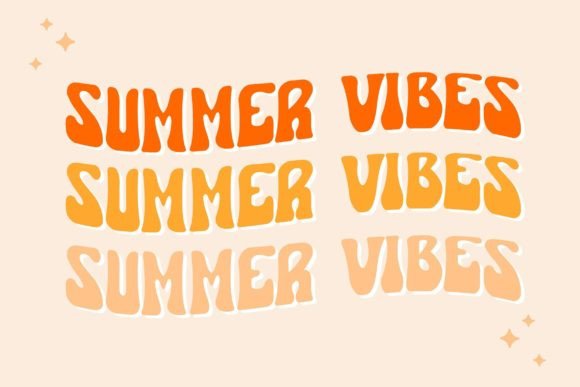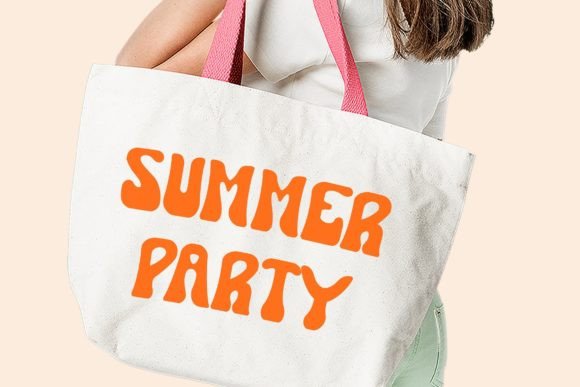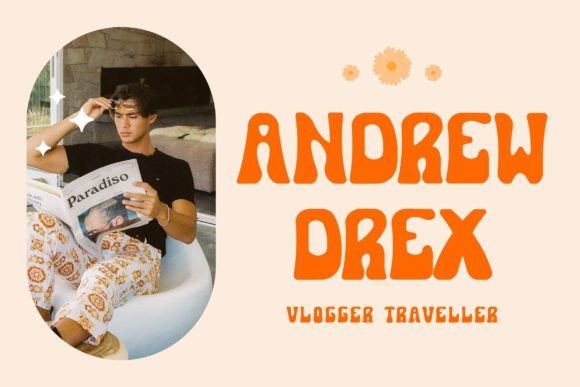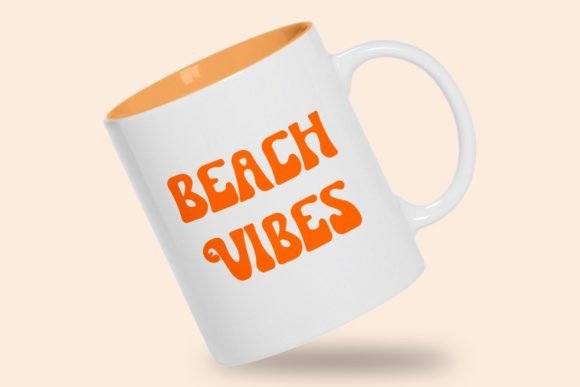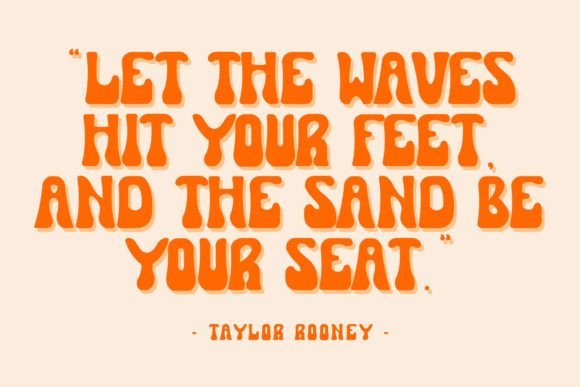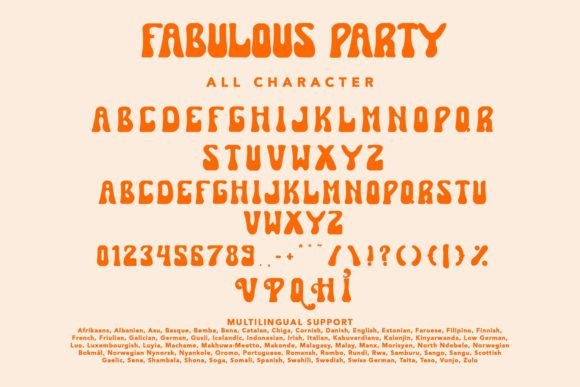
Introduction to Fabulous Party Font
Have you ever been scrolling through social media, stumbled upon a stunning graphic, and immediately wanted to know the secret behind its unique charm? For designers, that moment of inspiration can be a game-changer. And today, we’re excited to share with you a game-changing design resource that’s sure to elevate your creative projects – the Fabulous Party Font.
This fabulous font is more than just a pretty face; it’s a versatile tool that can add a touch of personality to any project. With its distinctive handwritten characters, it’s perfect for branding projects, logos, wedding designs, and even social media posts. Whether you’re looking to create a high-quality design or simply need a unique touch, the Fabulous Party Font has got you covered.
Key Features of Fabulous Party Font
- High-quality design resource perfect for creative projects and events.
- Unique, eye-catching characters with a transparent background, allowing for easy customization and versatility.
- Includes a range of characters, including uppercase and lowercase letters, numbers, and special symbols.
- Designed with a high resolution of 300 DPI, ensuring crisp and clear text in both digital and printed applications.
- Perfect for creating invitations, party decorations, and other design elements for your next fabulous event.
Honest Review: Fabulous Party Font
I recently had the chance to work with the Fabulous Party Font, and I must say it’s a real showstopper! ✨ The moment I downloaded it, I was excited to see how it would elevate my creative project. And boy, did it deliver!
The font itself is a high-quality design resource that exudes energy and fun. I love the playful vibe it brings to any text. The transparent background makes it easy to work with, and the font is compatible with a wide range of design software.
Here are some of the things I love about the Fabulous Party Font:
- It’s perfect for designing invitations, party banners, and other festive materials.
- The font is highly customizable, making it easy to adjust the size, color, and style to fit your needs.
- The transparent background makes it easy to layer with other design elements.
⚠️ One thing to note is that the font may not be suitable for more formal or professional projects. It’s definitely a fun, lighthearted font, but it may not be the best choice for a corporate brochure or website.
Tips for Getting the Most Out of Fabulous Party Font
To get the most out of the Fabulous Party Font, try using it in combination with bold colors and eye-catching graphics to create a visually appealing design.
The Fabulous Party Font is perfect for various design projects, including:
- Party invitations and decorations
- Wedding stationery and decor
- Marketing materials and social media graphics